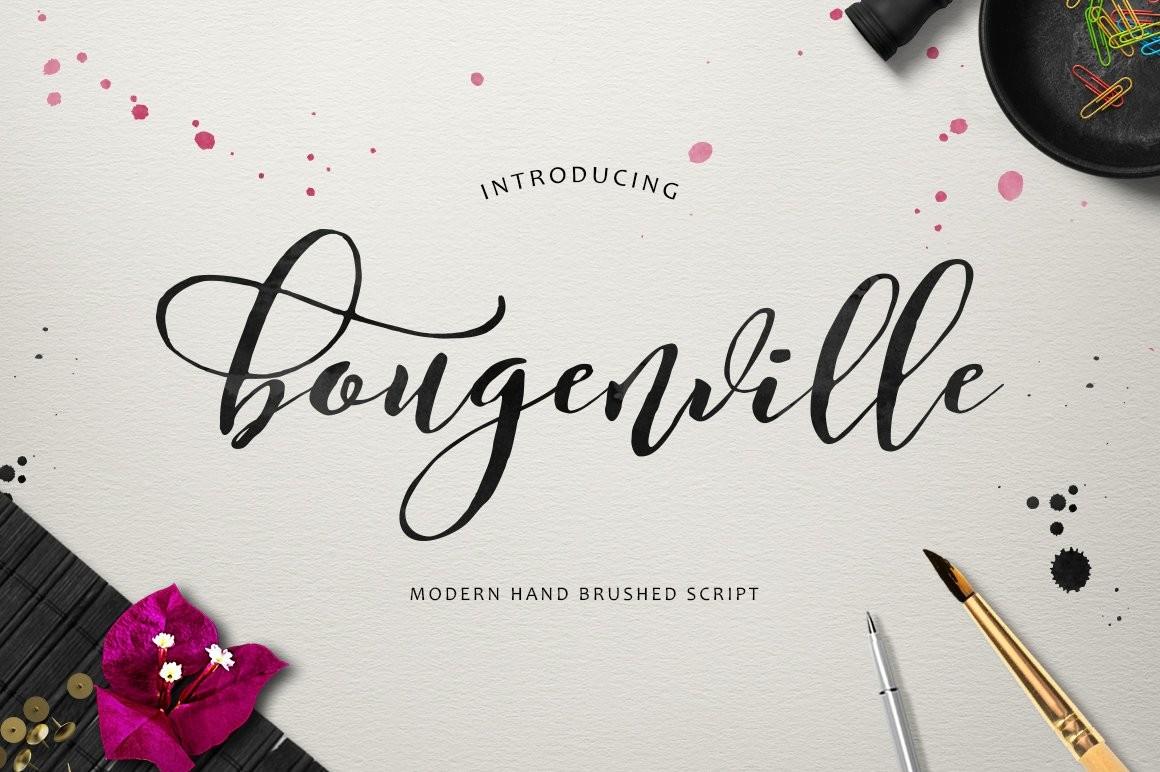
Bougenville Font Description
Bougenville is a lovely and calligraphic font that exudes elegance and class. This font is specially crafted for those who need a beautiful and refreshing look to their designs. Bougenville is PUA encoded which means you can access all of the glyphs and swashes with ease!